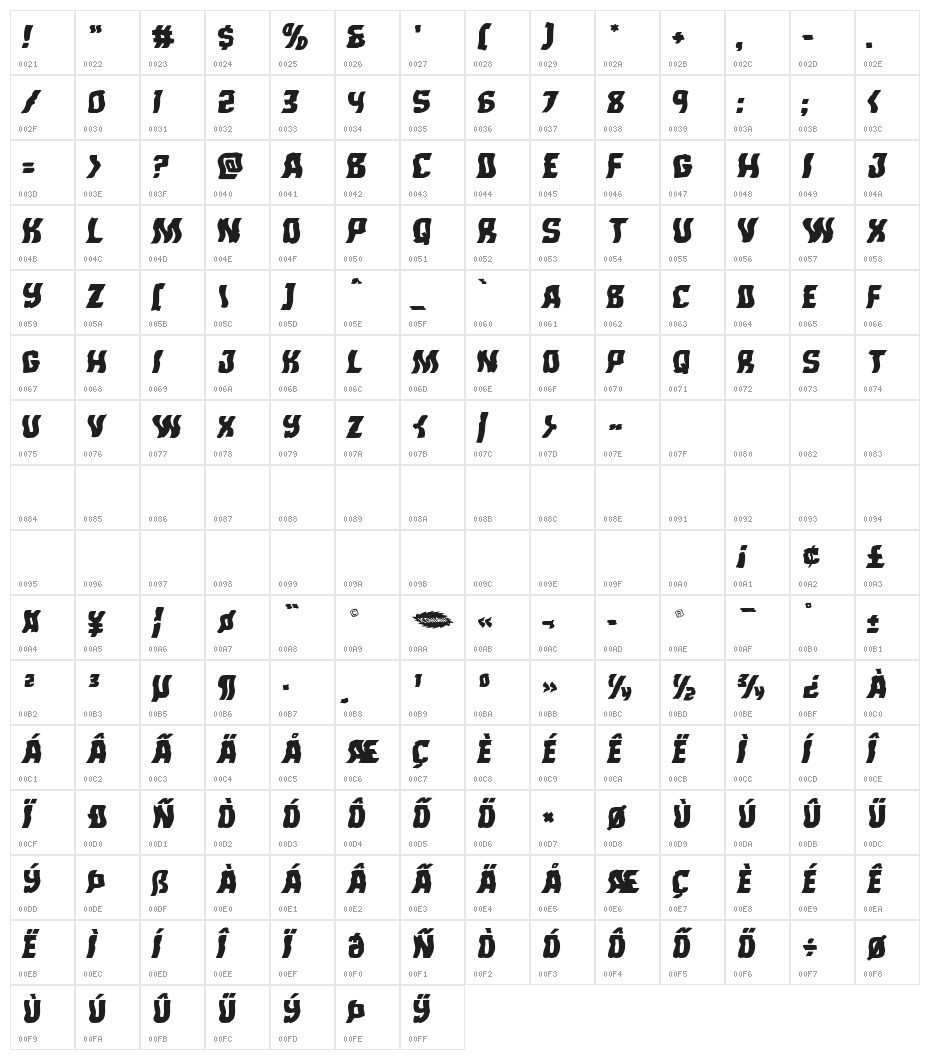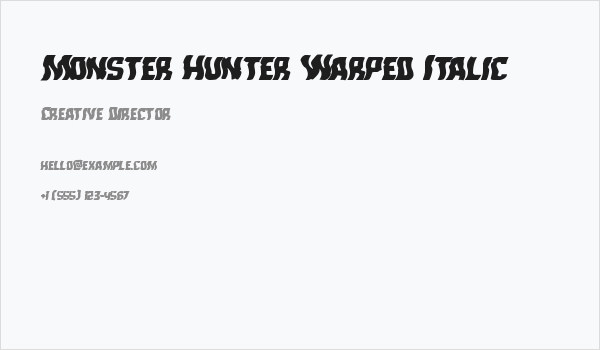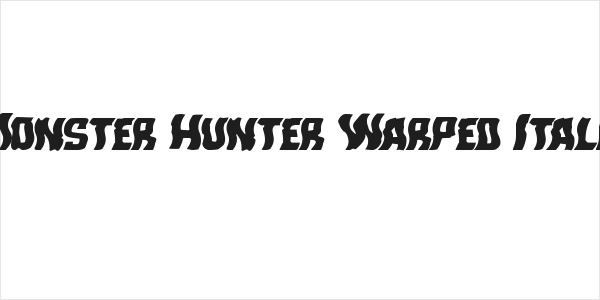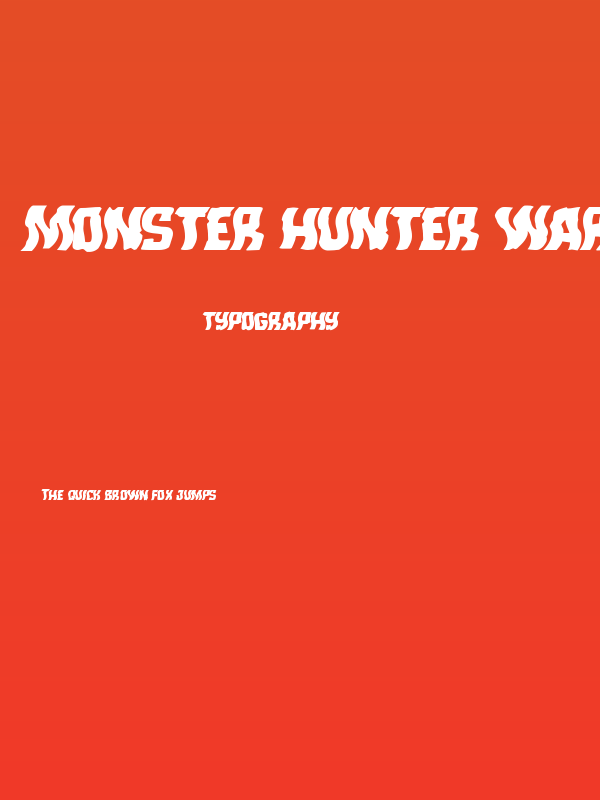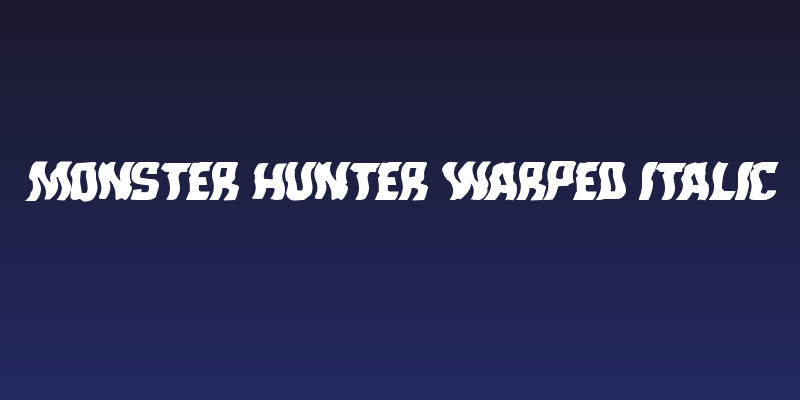
Monster Hunter Warped Italic Font
Monster Hunter Warped Italic Description
This font features a bold and dynamic style with a distinctly warped and italicized appearance. The characters exhibit a rugged, jagged edge that gives them a unique, aggressive look. The uppercase and lowercase letters maintain a consistent style, with exaggerated curves and sharp angles that create a sense of movement and energy. The numbers and special characters follow the same design principles, ensuring a cohesive visual identity. This font's striking appearance makes it ideal for projects that require a strong, impactful presence.
| Proposed Projects | Ideal for video game titles, movie posters, event flyers, and branding that requires a bold, adventurous look. |